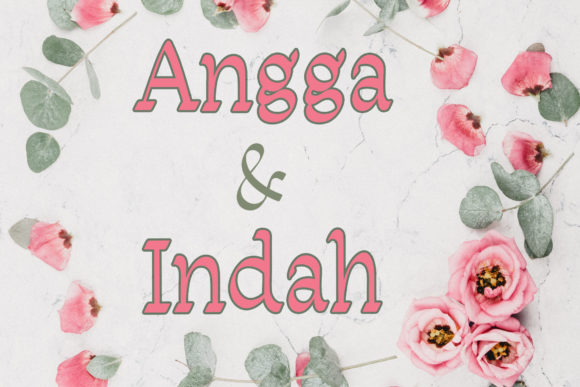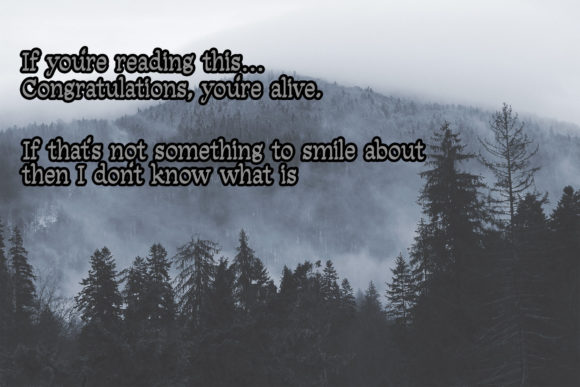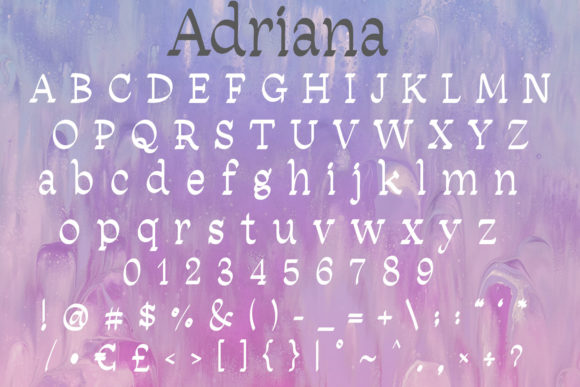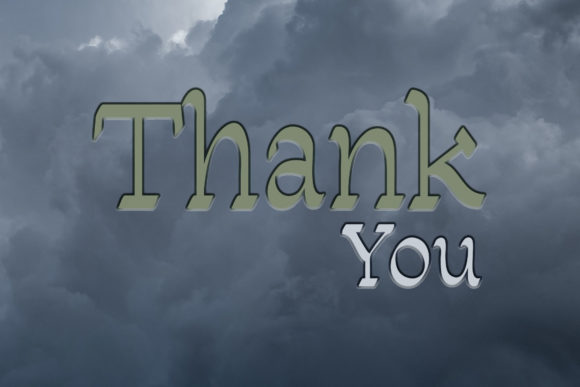
Discover the Unique Charm of Adriana Font: Elevate Your Designs with Authenticity
In the vast world of typography, finding the perfect font that captures the essence of your design can be a daunting task. However, if you’re looking for a distinct and authentic slab serif font that can add a touch of elegance and sophistication to your creations, look no further than Adriana Font. This stunning font is specifically designed to help you create eye-catching logos, branding, and quotes that stand out from the crowd.
The Distinctive Features of Adriana Font
Adriana Font boasts a unique and beautiful touch in every letter, making it an exceptional choice for designers and crafters seeking to add a personal touch to their work. Its slab serif design gives it a distinctive look that is both modern and classic, allowing it to seamlessly blend into various design contexts. Whether you’re working on a logo, a branding project, or a quote, Adriana Font’s authentic feel will undoubtedly make your design come alive.
Why Choose Adriana Font for Your Designs?
There are numerous reasons why Adriana Font stands out as a top choice for designers and crafters:
• Uniqueness: In a sea of generic fonts, Adriana Font offers a breath of fresh air with its unique design. Each letter is crafted with precision and care, ensuring that your designs have a distinctive look.
• Versatility: Adriana Font is incredibly versatile, making it suitable for a wide range of projects. From logos and branding to quotes and more, this font adapts beautifully to any design context.
• Elegance: The slab serif design of Adriana Font adds an touch of elegance to any design. Its classic look makes it perfect for projects that require a sophisticated feel.
• Authenticity: With Adriana Font, you can achieve an authentic look that resonates with your audience. Its genuine feel makes it ideal for designers seeking to create a lasting impression.
Applications of Adriana Font
The versatility of Adriana Font makes it suitable for various applications, including:
• Logo Design: Create memorable and impactful logos that capture the essence of your brand with Adriana Font.
• Branding: Establish a strong brand identity with this distinctive font, perfect for business cards, letterheads, and more.
• Quotes and Posters: Add a touch of elegance to your quotes and posters with Adriana Font, making them stand out on social media or in print.
• Packaging: Elevate your packaging design with the unique and authentic feel of Adriana Font.
Tips for Using Adriana Font Effectively
To get the most out of Adriana Font, consider the following tips:
• Experiment with Sizes: Adriana Font looks great in various sizes. Experiment with different sizes to find the perfect fit for your design.
• Play with Colors: The font’s classic design makes it versatile enough to work well with a variety of colors. Don’t be afraid to experiment and find the perfect color scheme.
• Mix and Match: Adriana Font pairs well with other fonts. Try mixing and matching it with complementary fonts to create a unique look.
Adriana Font is a game-changer for designers and crafters seeking to add a touch of authenticity and elegance to their work. Its unique design, versatility, and classic feel make it the perfect choice for creating eye-catching logos, branding, and quotes. With Adriana Font, you can elevate your designs and make them truly unforgettable. So why wait? Discover the unique charm of Adriana Font today and take your designs to the next level!